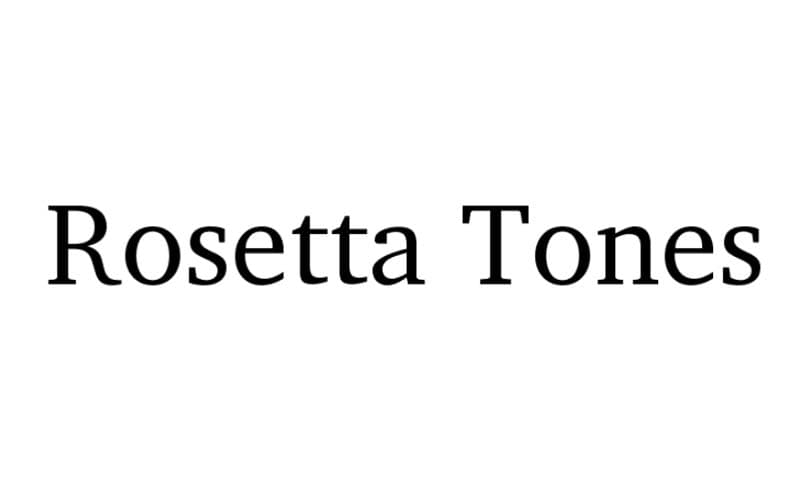
Rosetta Tones Font is a royalty-free serif and display typeface that is the nicest font available for pretty designs and beautiful compositions. This stunning font was created and uploaded by Jay Torp.
This free font family can be found in a single weight and possesses Truetype file format. With a high level of glimpse, it gives the best view in both upper and lower case. This unique font has a solid texture that the designer created with thin strokes.
Its rounded corners with neat texture make it perfect for many designs like unique emblems, book covers, printing on cards, web development, game graphics, brochures, flyers, logo designs, and many more.
Rosetta Tones Font